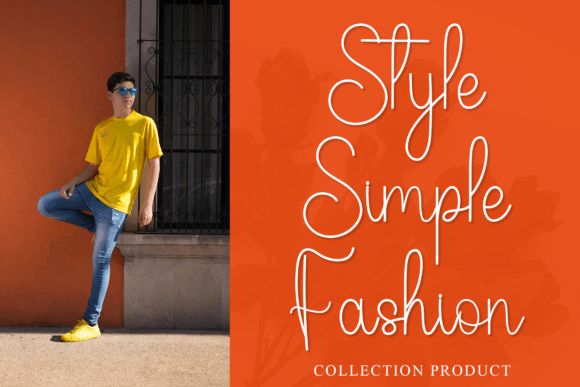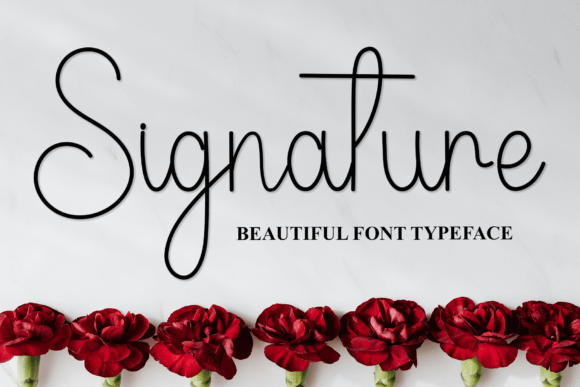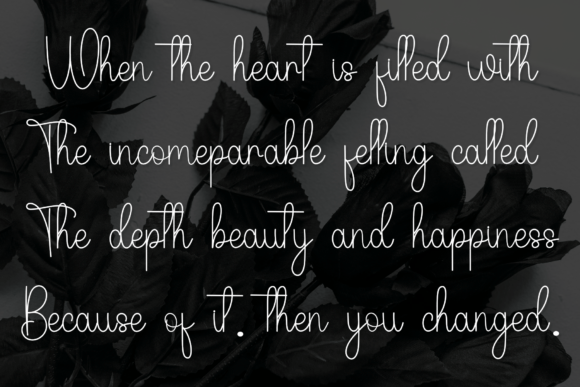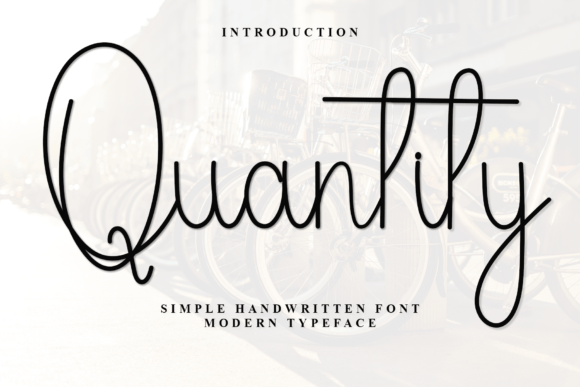
Introduction to Quantity Font
Quantity is a delicate, elegant, and flowing handwritten font.
It has beautiful and well-balanced characters and as a result, it matches a wide pool of designs Add it to your most creative ideas and notice how it makes them come alive.